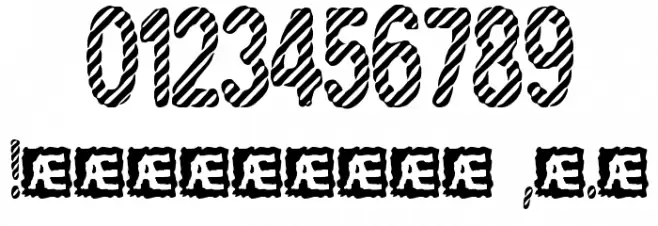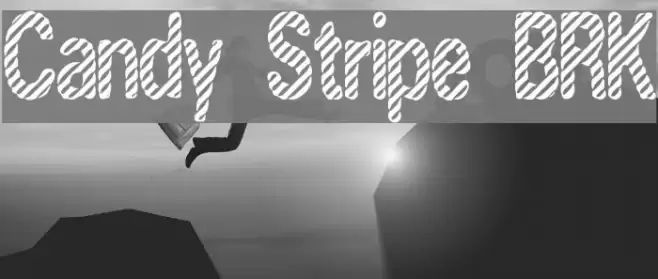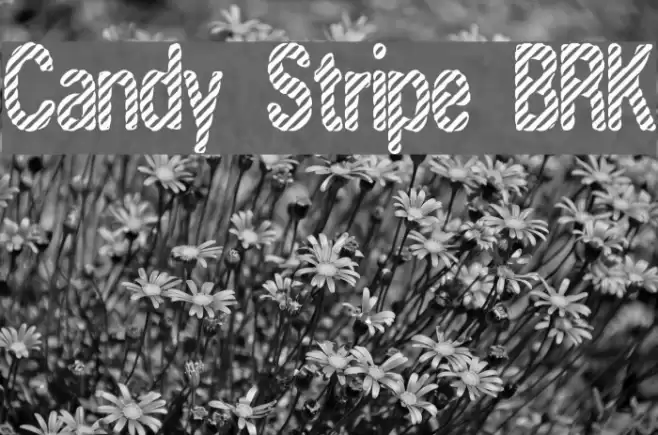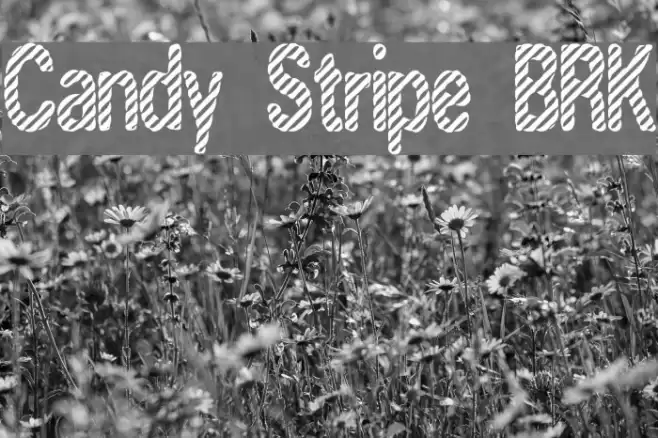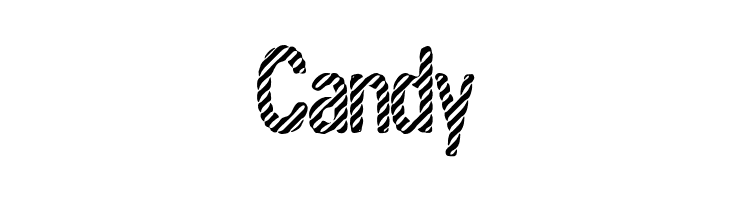
Candy Stripe [BRK] Font
Candy Stripe [BRK] Description
This playful and decorative font features a unique candy stripe pattern across each character, creating a lively and eye-catching effect. The letters are bold and rounded, with a consistent diagonal stripe running through them, reminiscent of candy canes or festive decorations. The uppercase and lowercase letters maintain a uniform style, ensuring readability while adding a whimsical touch. Numbers and special characters are also included, following the same striped design, making this font versatile for various creative applications.
A bold, decorative font with a candy stripe pattern across each character from Decorative fonts.
- Proposed Projects: Ideal for holiday-themed designs, children's book covers, playful branding, party invitations, and festive posters.